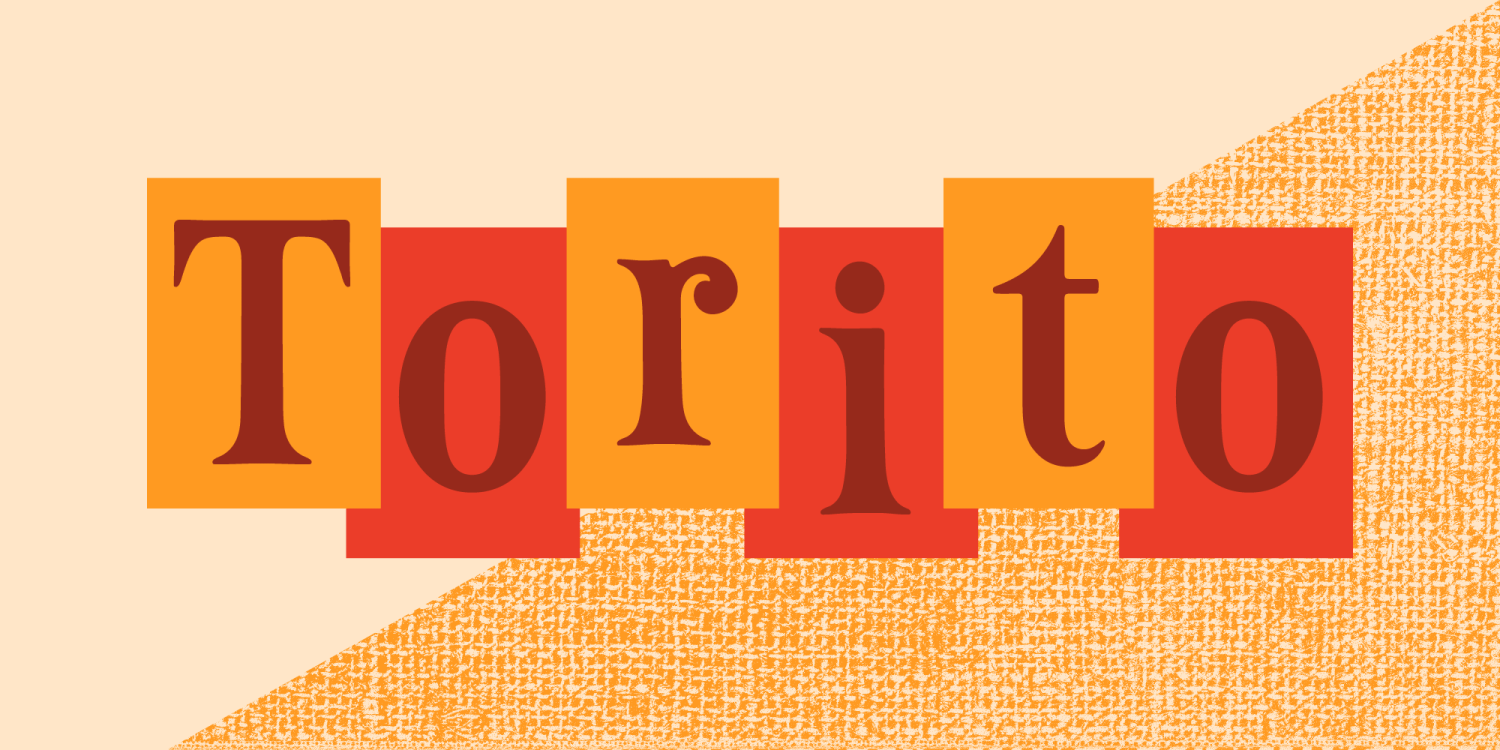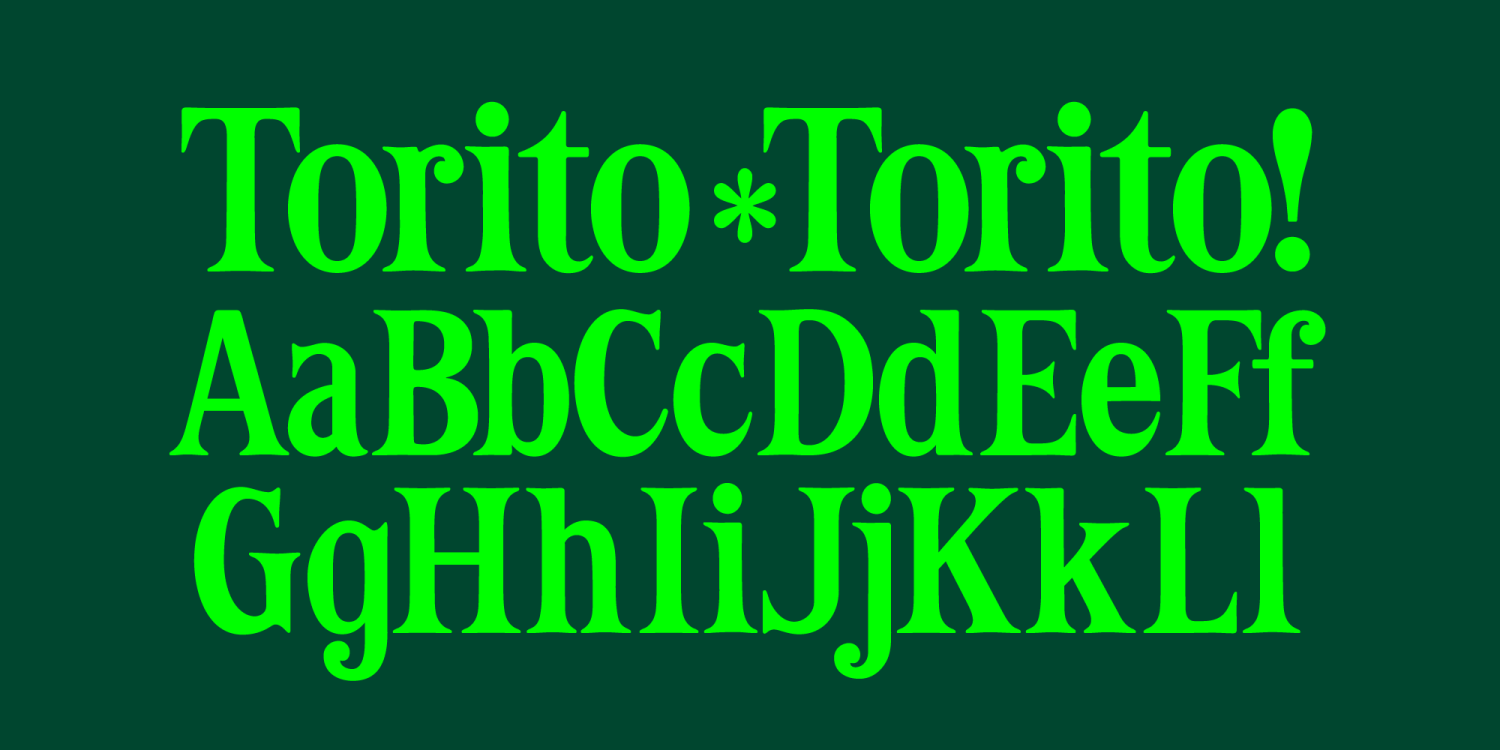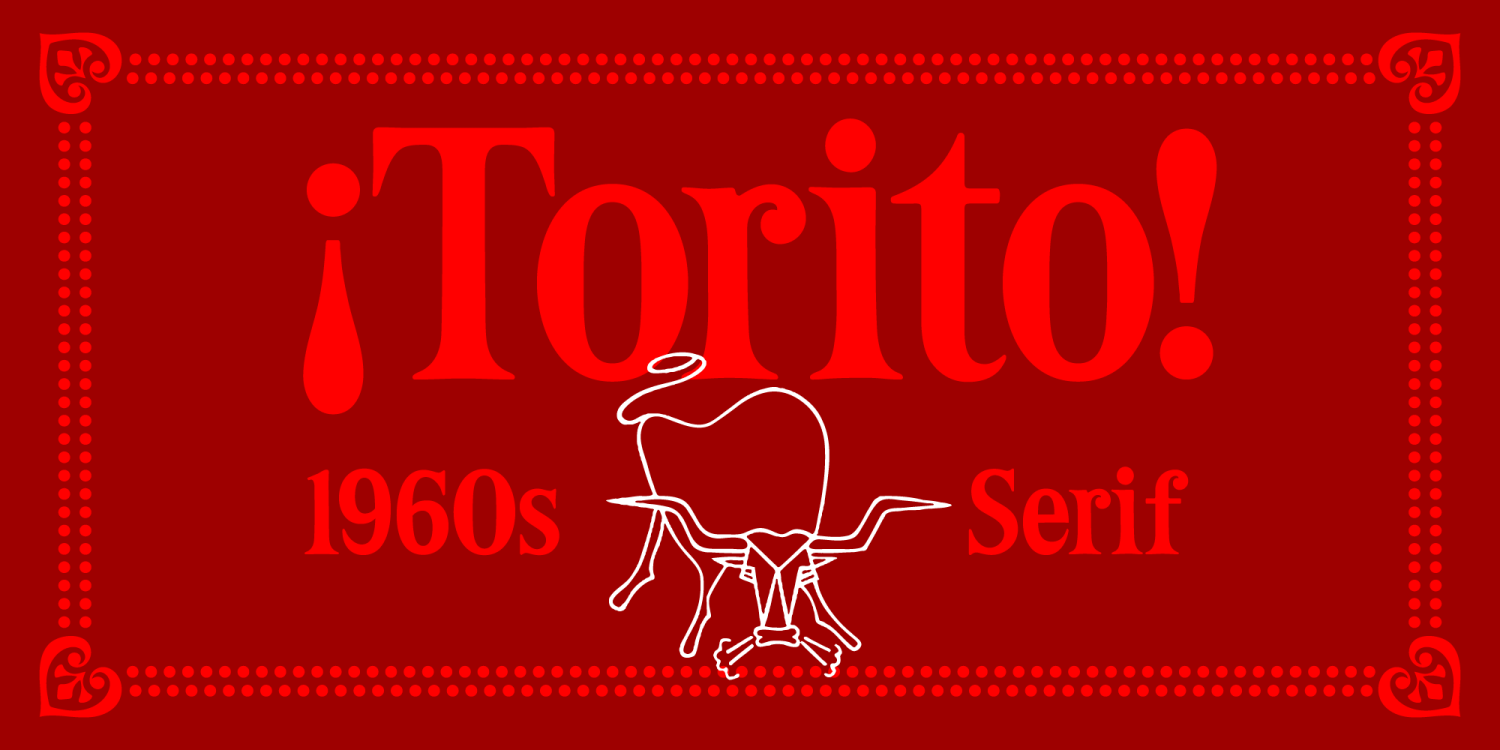
Torito
About Torito
Discover the mesmerizing retro chip branding font, an exquisite blend of 1960s nostalgia and modern charm. Crafted with passion and creativity, this typographic masterpiece adds a touch of vintage flair to any project. Embrace the allure of the past and…